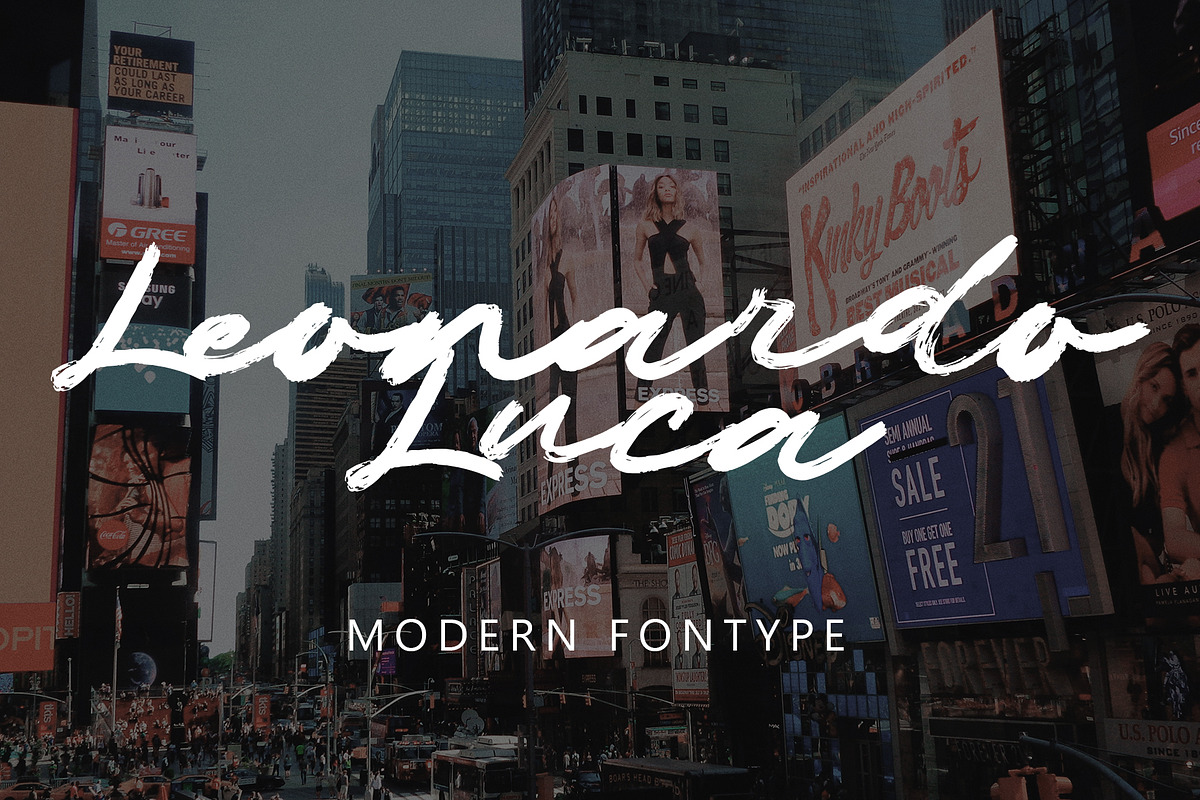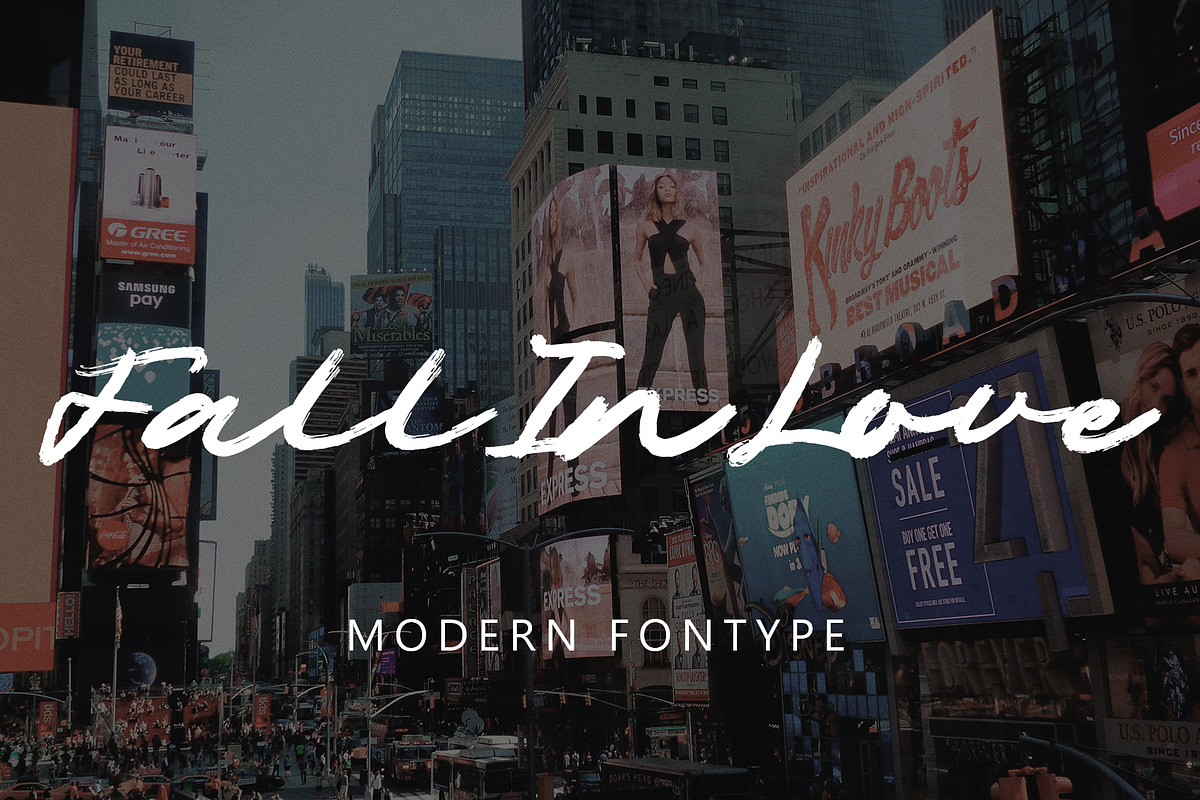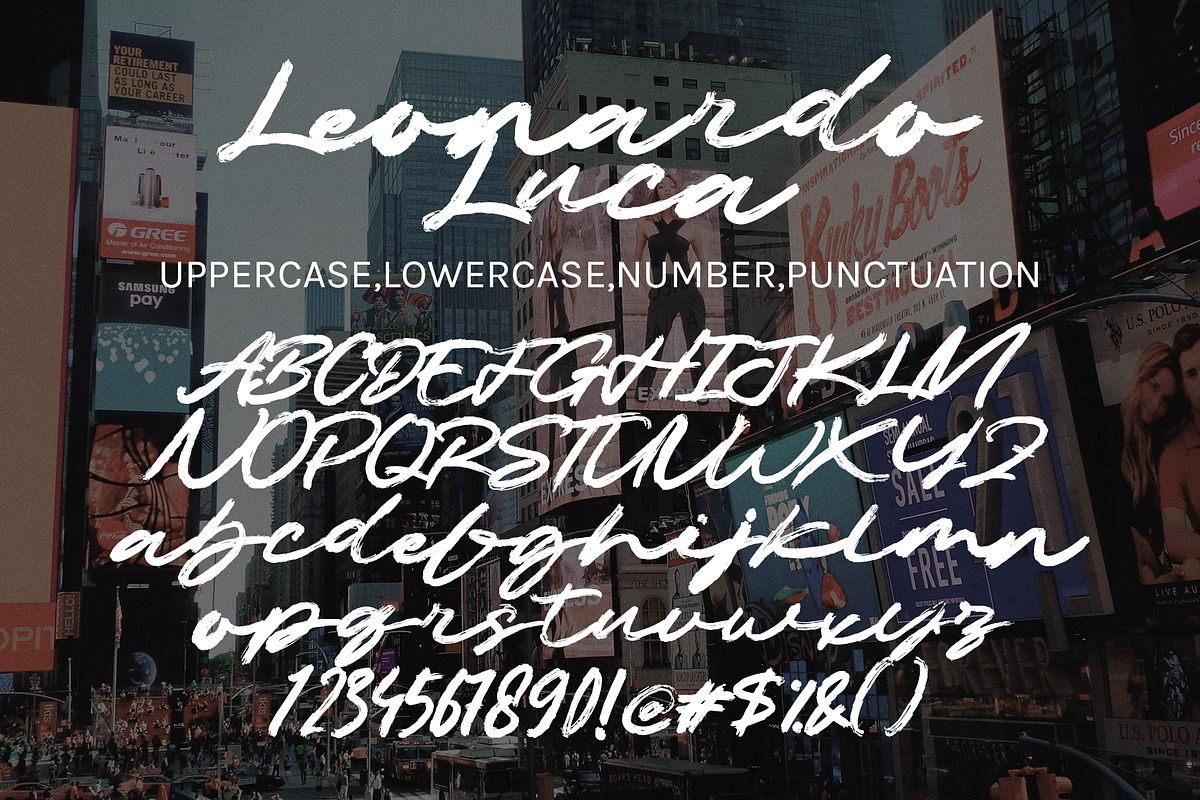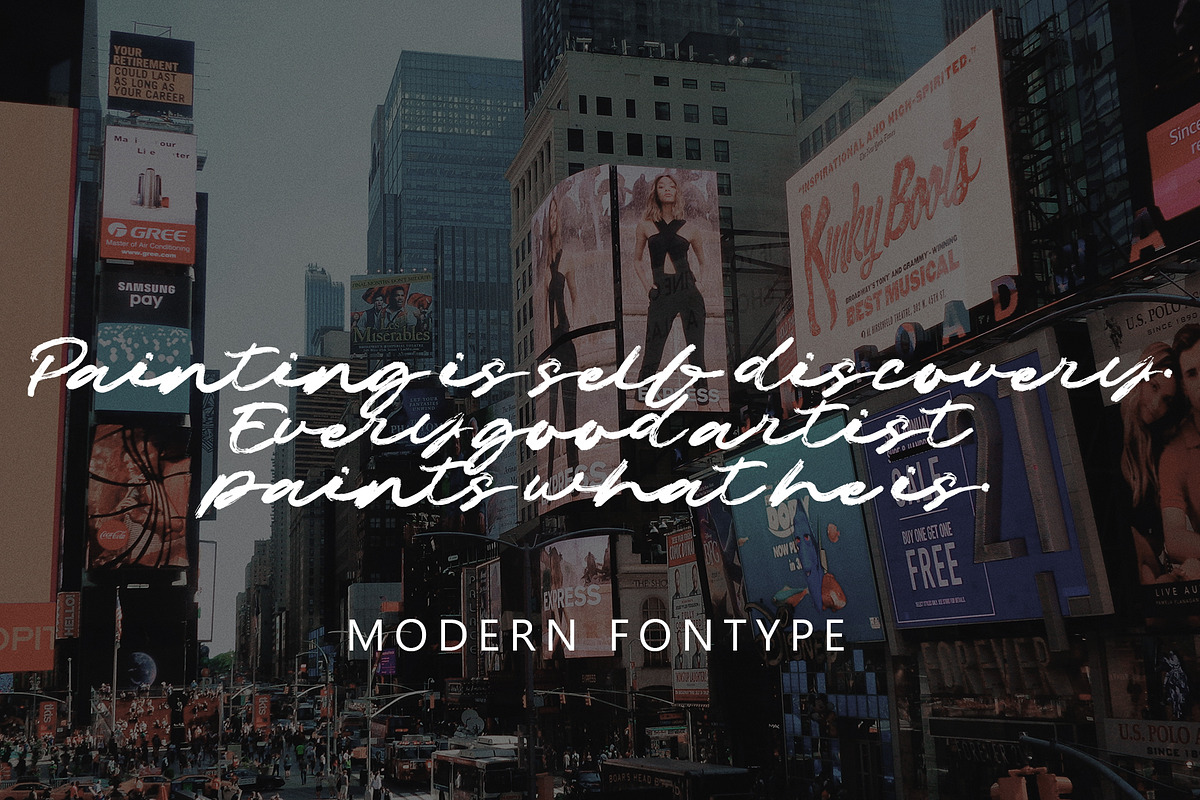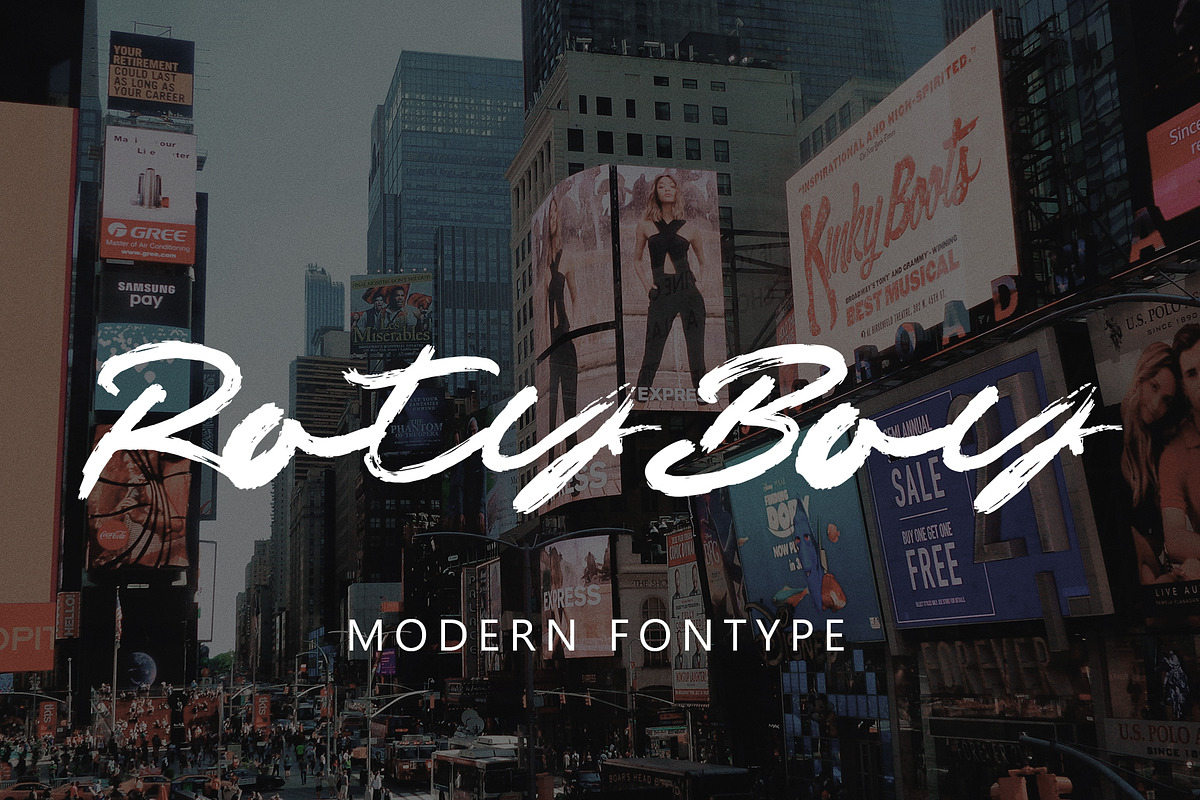
Leonardo Luca
Leonardo Luca with new style, this font will perfect for many different project ex: quotes, logo, blog header, poster, banding, letter, invitation, stationery, etc...